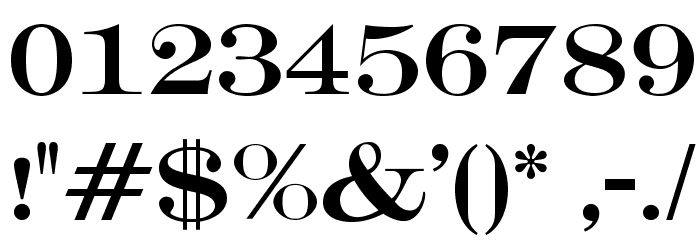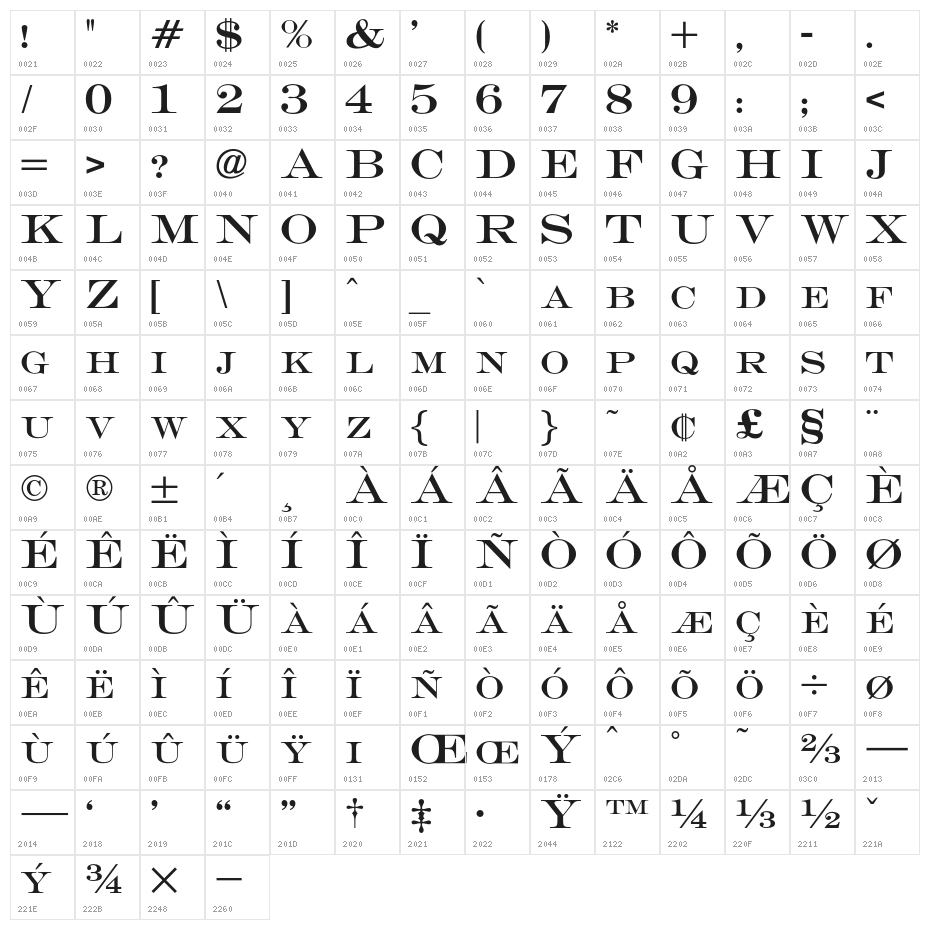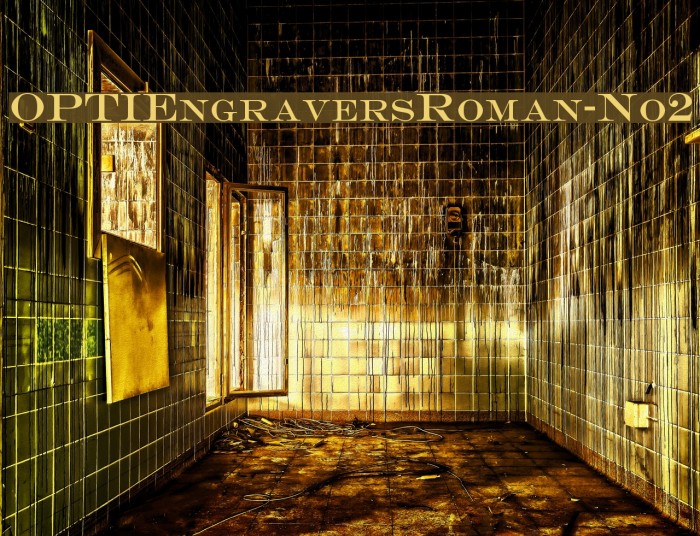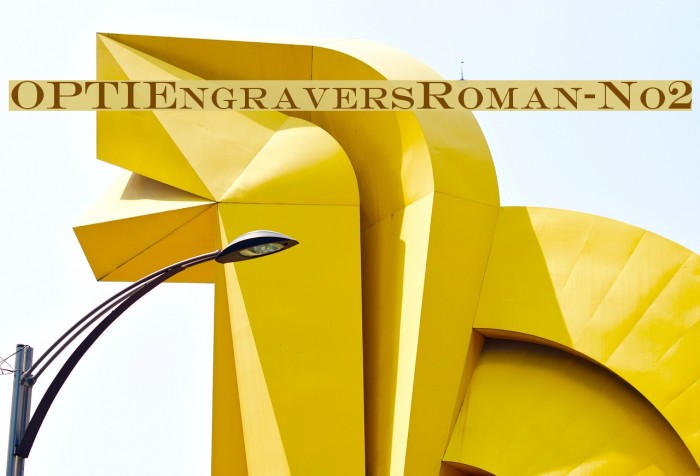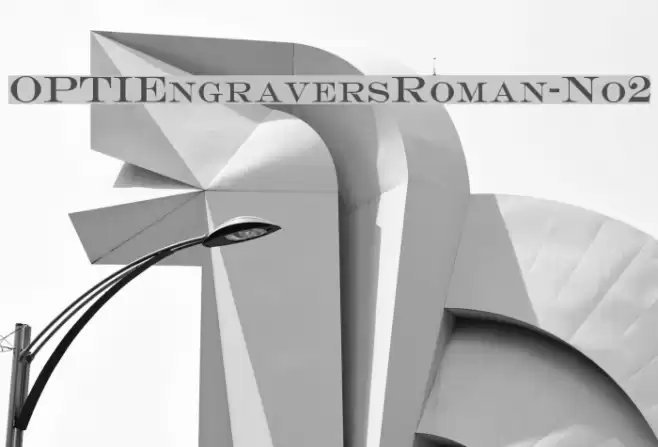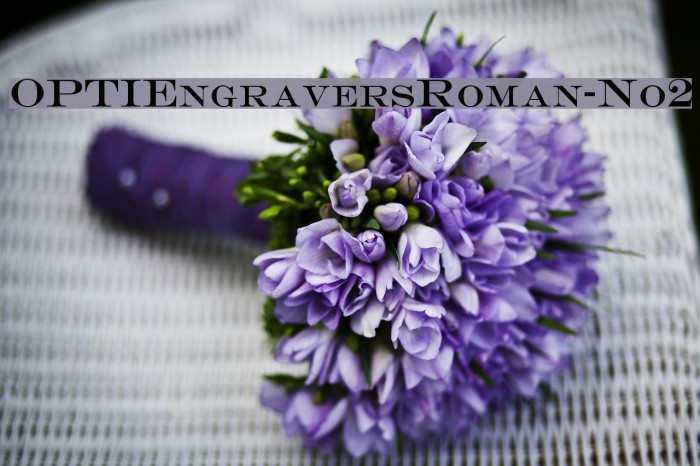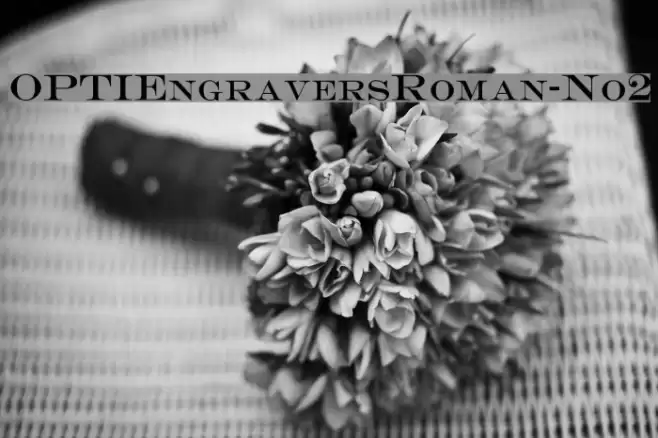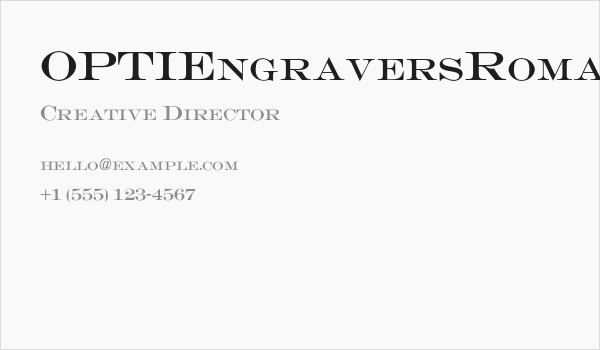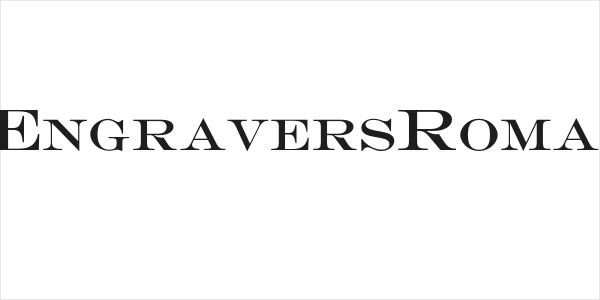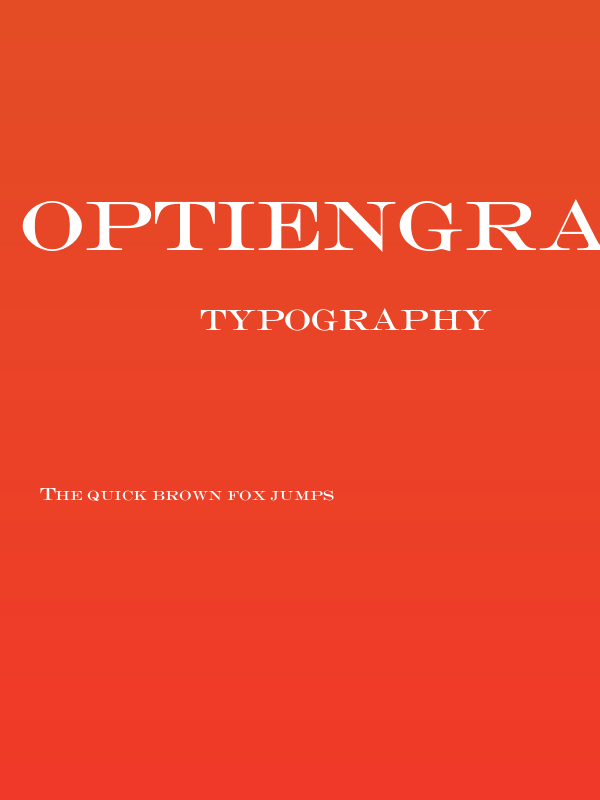
OPTIEngraversRoman-No2 Font
OPTIEngraversRoman-No2 Description
This font exhibits a classic serif style with a refined and elegant appearance. The characters are well-defined with sharp serifs and a balanced proportion, making it suitable for formal and traditional applications. The uppercase letters are bold and commanding, while the lowercase letters maintain a consistent style. The numerals are distinct and clear, with a slight flair that adds a touch of sophistication. Special characters are crafted with precision, enhancing the overall aesthetic. The font's design is timeless, making it versatile for various uses.
| Proposed Projects | Ideal for formal documents, wedding invitations, book covers, and branding materials. |